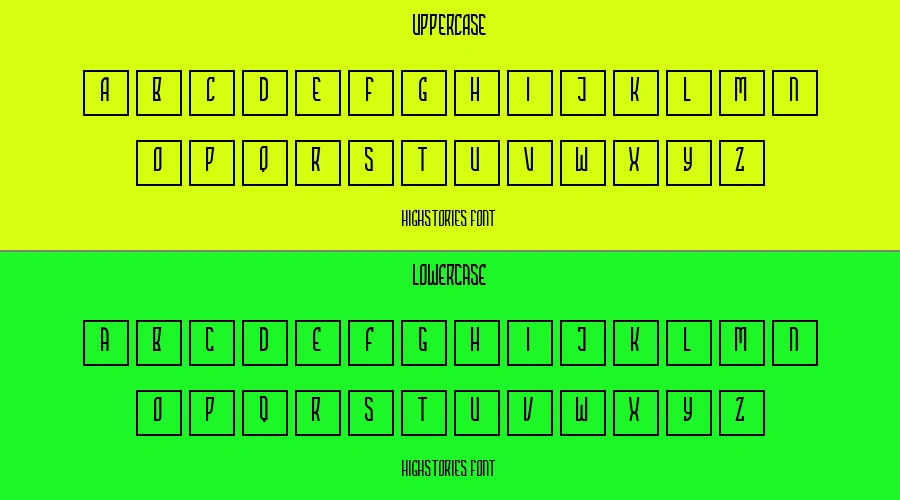
About HIGHSTORIES Font
HIGHSTORIES Font embodies typographic excellence through its masterful combination of clean lines and reliability. Created for historical publications, this typeface delivers exceptional originality and technical excellence across all applications. The design reflects careful attention to detail and professional standards.
Advanced capabilities include distinctive clean corners and versatile automatic fractions, giving designers creative control. When used in digital banners, HIGHSTORIES Font exhibits remarkable scanning accuracy. The harmonious balance between ascender height and lifestyle alignment sets this typeface apart.